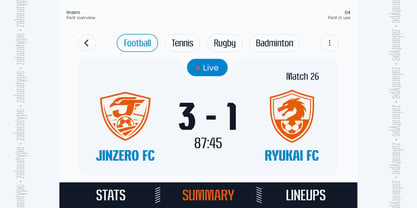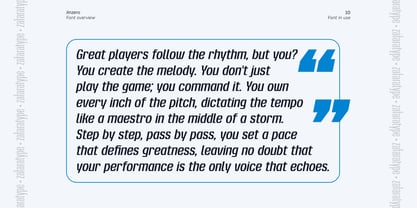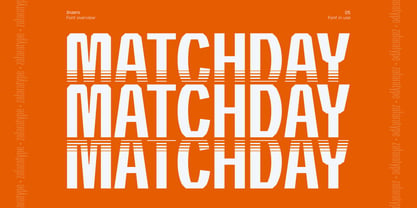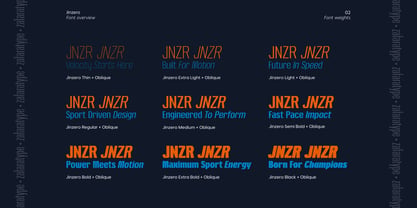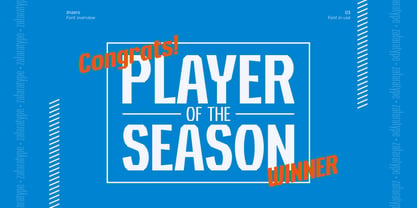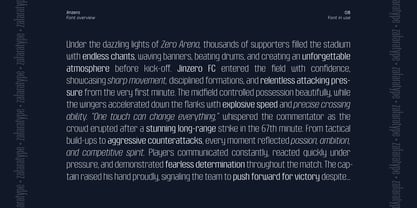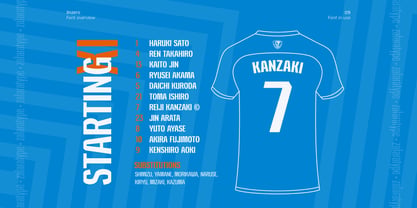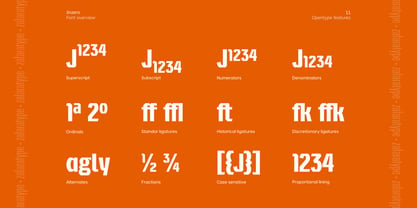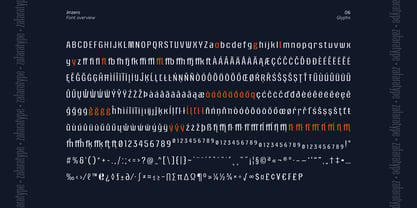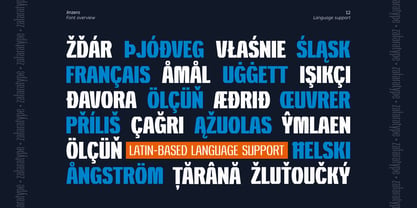
Jinzero
by Zafara Studios
The Jinzero Font Family was designed by Zohan Nur Muchlis and published by Zafara Studios. Jinzero contains 18 styles and family package options. More about this family
Jinzero is a sporty futuristic display family created to deliver strong energy, speed, and modern visual impact through a bold condensed structure. Designed with sharp geometric cuts, dynamic proportions, and a confident athletic attitude, Jinzero captures the spirit of futuristic sports branding while maintaining excellent clarity and balance.
Its tall construction and compact spacing create a powerful presence that works exceptionally well for headlines, esports visuals, posters, sportswear branding, racing themes, technology campaigns, and contemporary display design. The combination of aggressive forms and clean geometry gives Jinzero a distinctive personality that feels competitive, energetic, and forward-looking.
The family includes 18 styles, consisting of 9 upright and 9 oblique styles, ranging from Thin to Black. This complete range provides strong flexibility for creating layered typography, impactful hierarchy, and dynamic compositions across various creative applications.
Carefully crafted for consistency and versatility, every style maintains a cohesive rhythm while adapting naturally to both bold display settings and modern branding systems. The oblique styles add extra motion and intensity, making the family especially suitable for fast-paced visual identities and futuristic concepts.
With 517 glyphs and extensive Latin-based language support, Jinzero is designed for multilingual typography and supports a wide range of international communication needs. This makes it ideal for global branding projects, sports campaigns, digital media, and modern creative work requiring both style and functionality.
Bold, futuristic, and full of momentum, Jinzero is built to make a strong statement in contemporary visual design while remaining clean, versatile, and highly recognizable across multiple platforms.
Designers: Zohan Nur Muchlis
Foundry: Zafara Studios